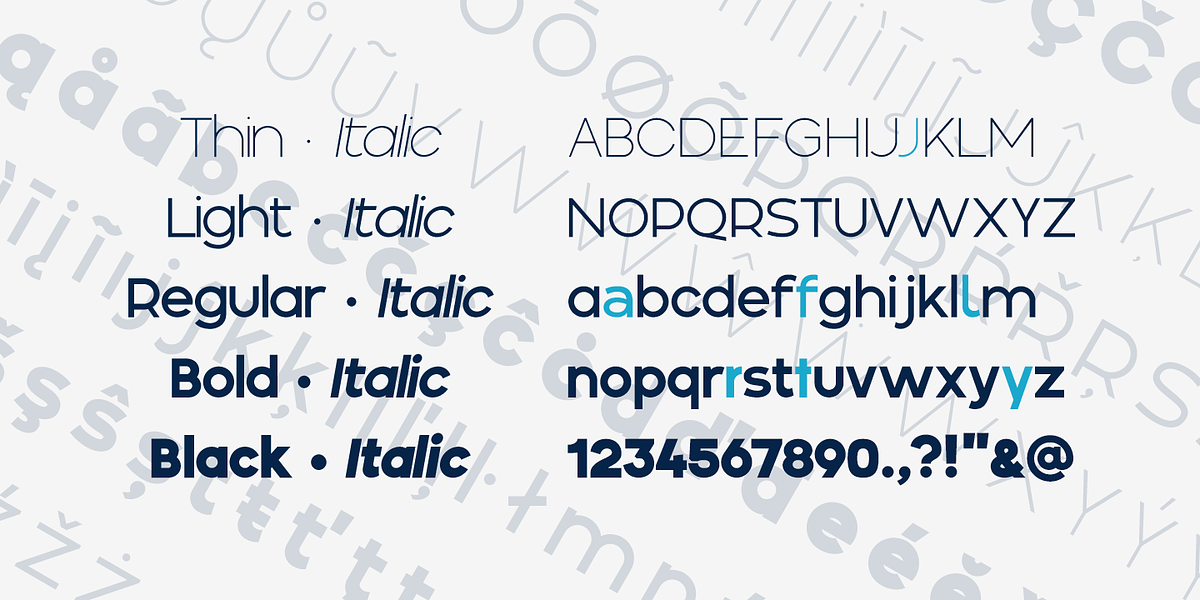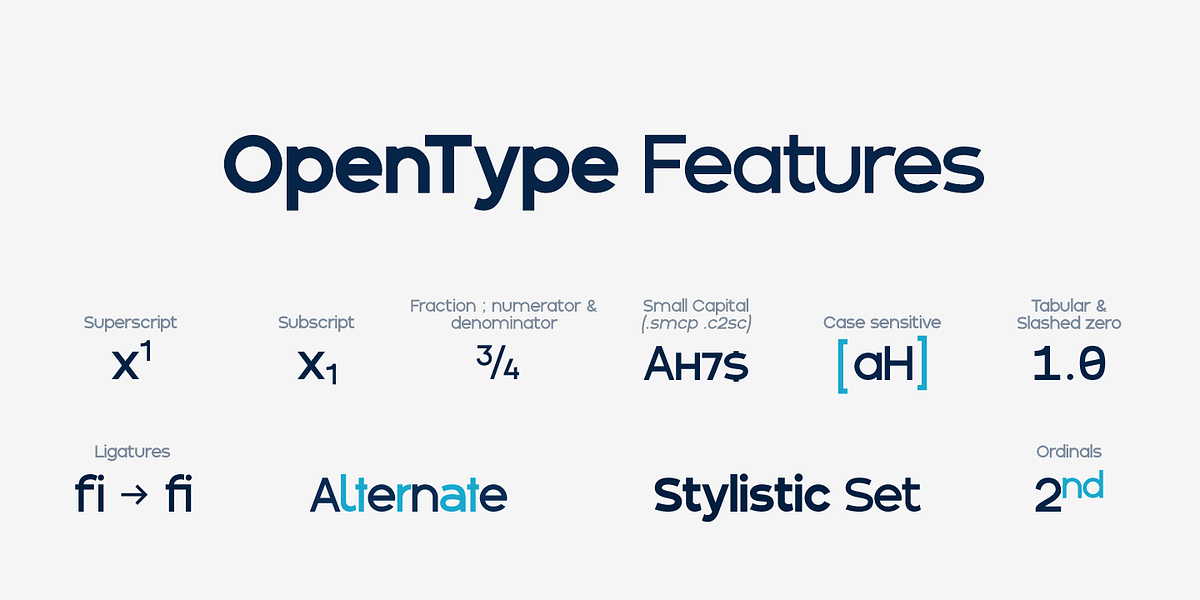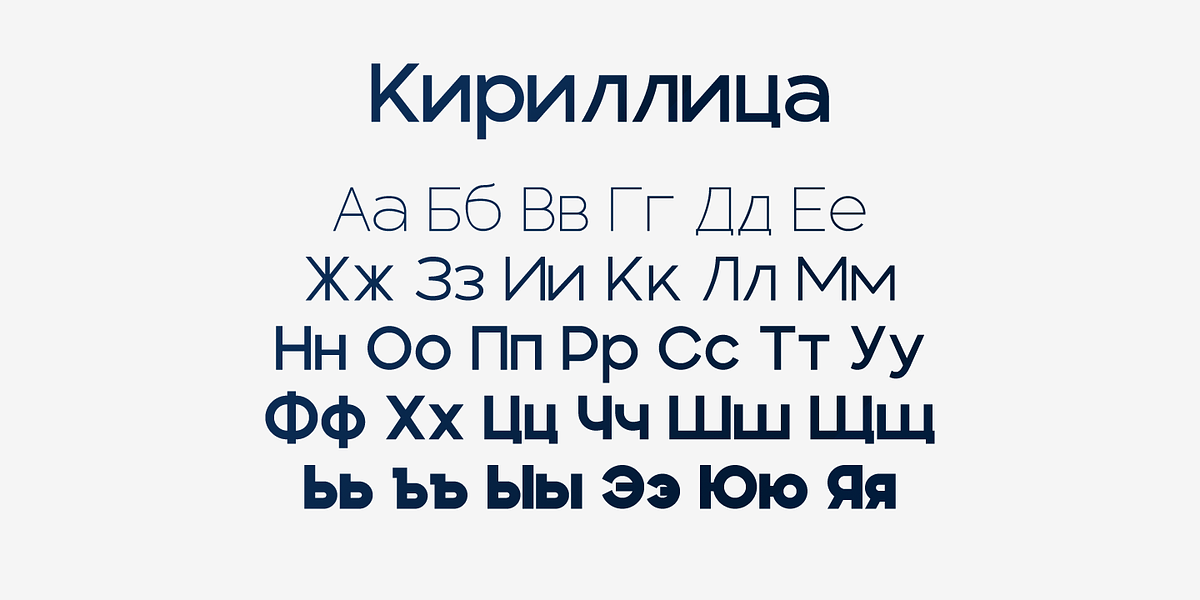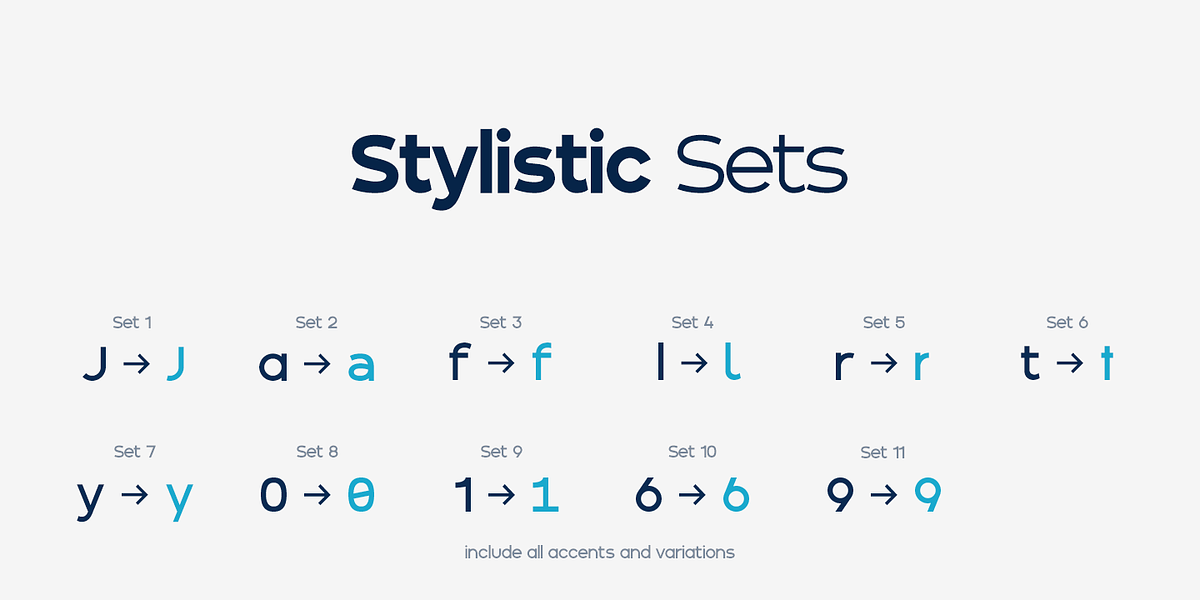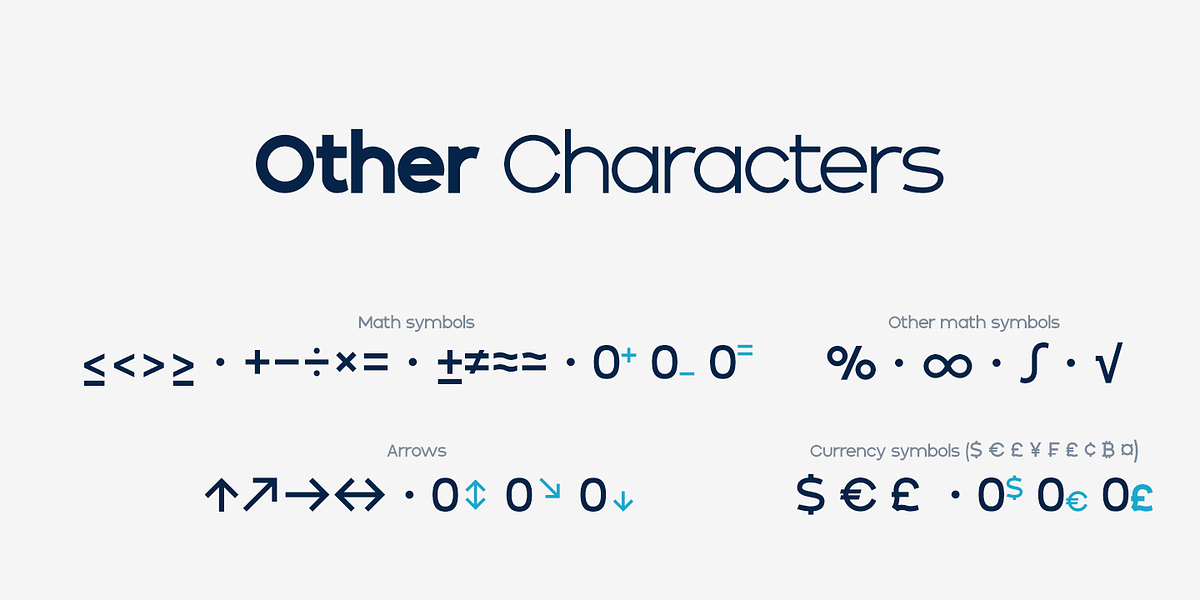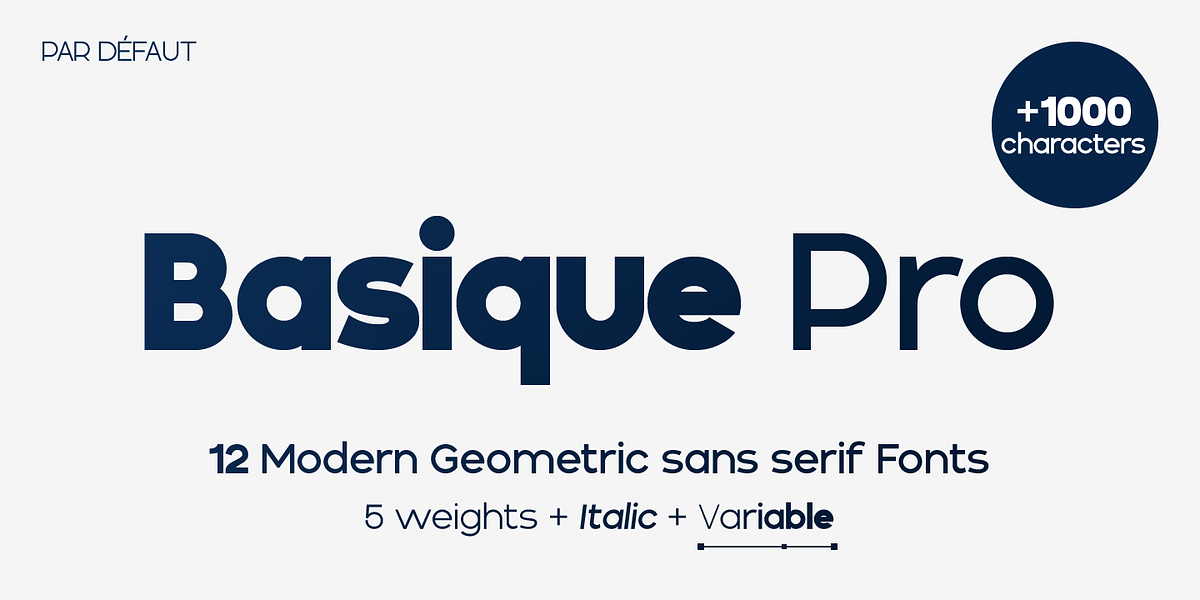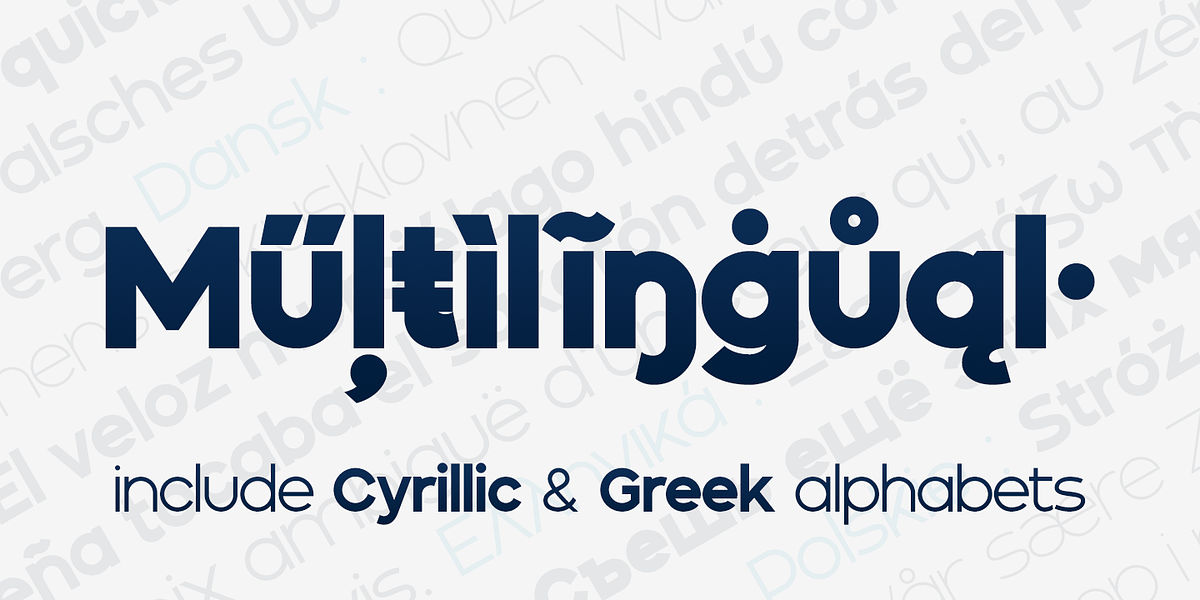
Basique Pro
Basique Pro is a versatile geometric sans serif font designed for modern applications. Its clean lines and high contrast make it suitable for both headings and body text. The extensive character set, including Latin, Cyrillic, and Greek alphabets, along with OpenType features like ligatures, small caps, fractions, and stylistic sets, make Basique Pro ideal for a wide range of design projects, from publications to branding materials. The availability of a variable font version adds to its flexibility and adaptability.